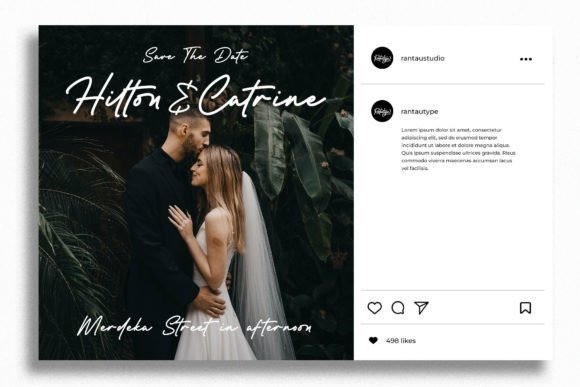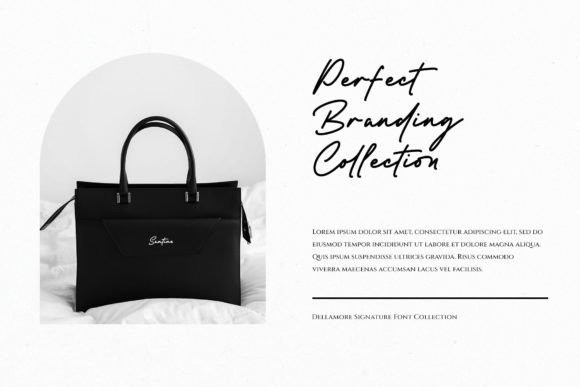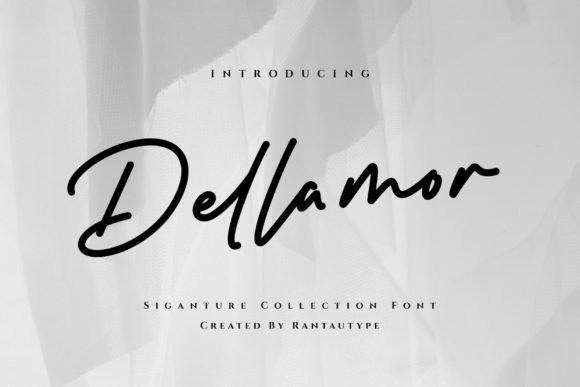
Dellamor Handwriting Font
Dellamor Handwriting Font exudes elegance and sophistication with its stylish script design. The flowing strokes and intricate details evoke a sense of romance and refinement, making it perfect for wedding invitations, event signage, and elegant branding projects. This font adds a touch of luxury to any design.